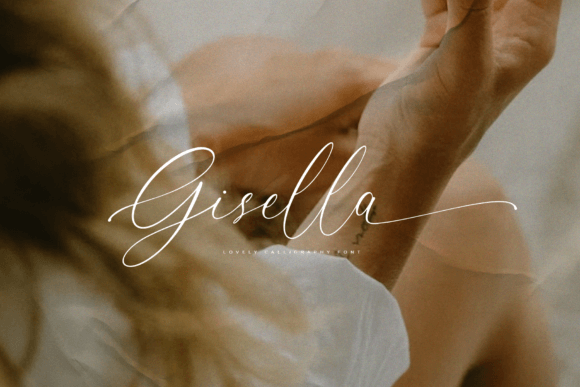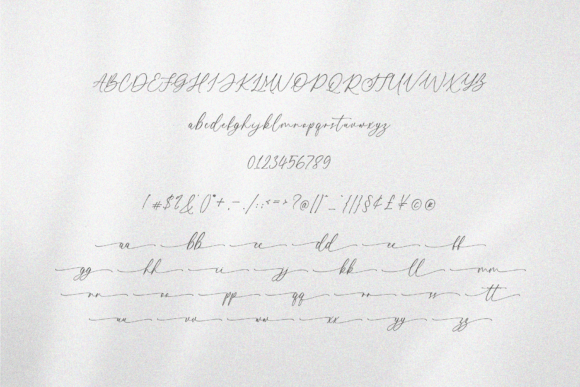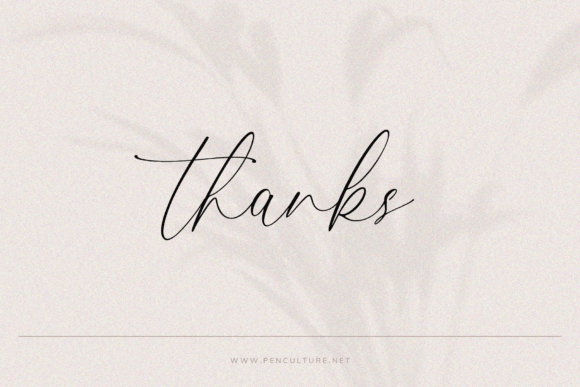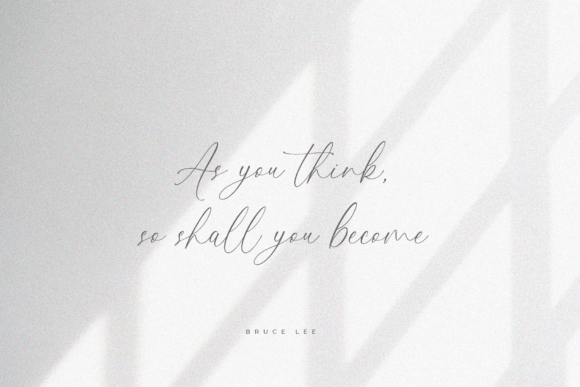
About Gisella Font
**Gisella** is an elegant and modern calligraphy font with a delightful touch that adds a touch of sophistication to your text. This font is a versatile choice, offering both beginning and ending swashes that bring a sense of beauty and uniqueness to your designs. Gisella is well-suited for a wide range of creative applications, making it a perfect choice for branding, logo design, wedding invitations, posters, magazines, and various other design projects.
The standout feature of Gisella is its beautiful swashes that grace the beginnings and endings of the characters. These swashes add a touch of flourish and charm, making this font particularly suitable for projects where you want to convey elegance and creativity.
Whether you’re working on branding for your business or clients, creating a memorable logo, designing wedding invitations that exude romance, or crafting visually striking posters and magazine layouts, Gisella offers the versatility and style to meet your design needs.
The PUA (Private Use Area) encoding of Gisella is a valuable feature that allows you to easily access all the glyphs and swashes. This enhances your ability to customize and personalize your text, giving you creative freedom to make your designs truly unique.
In summary, Gisella is a modern calligraphy font that combines elegance with a lovely touch. Its beginning and ending swashes add a sense of beauty and uniqueness, making it a perfect choice for a variety of design projects. With PUA encoding for easy access to glyphs and swashes, Gisella empowers you to create stunning and memorable typography for your creative endeavors.